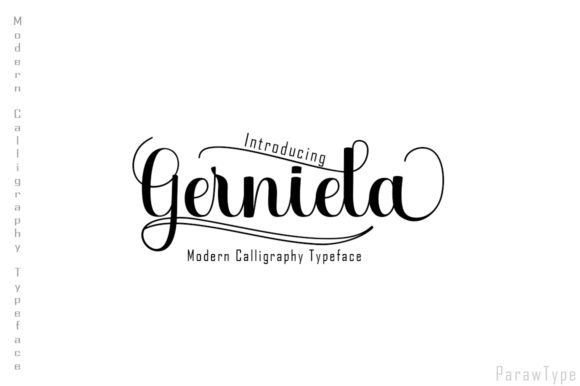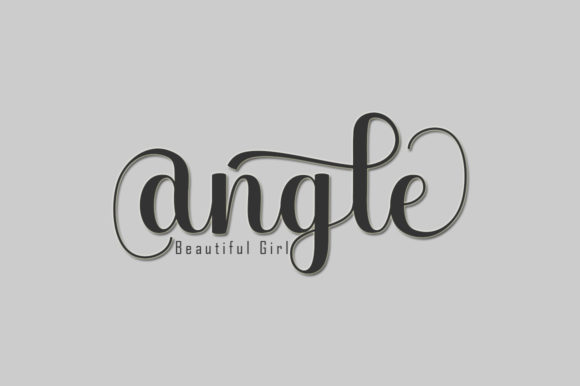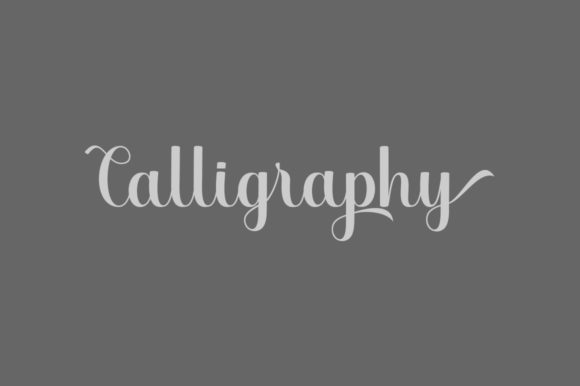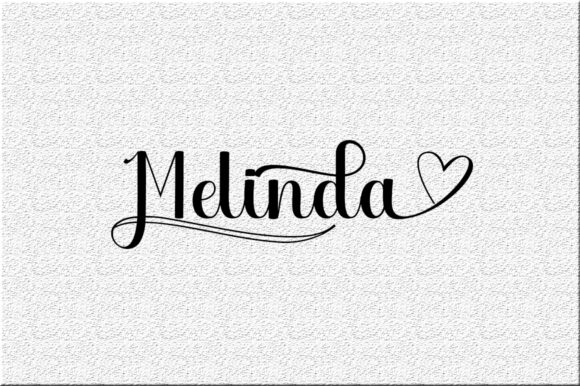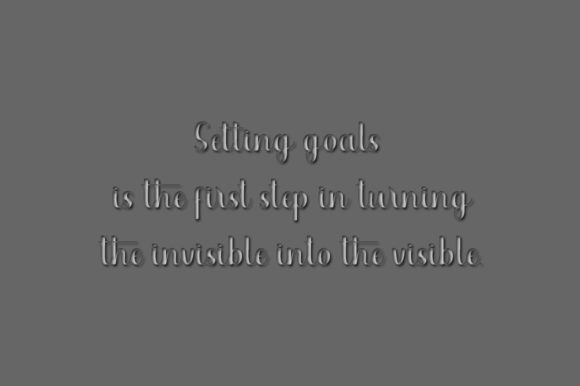
Gerniela Font
About Gerniela Font
Gerniela is a sweet and charming handwritten font with a beautiful style. Fall in love with its incredible swashes, and use it to turn any design project into a piece of art.